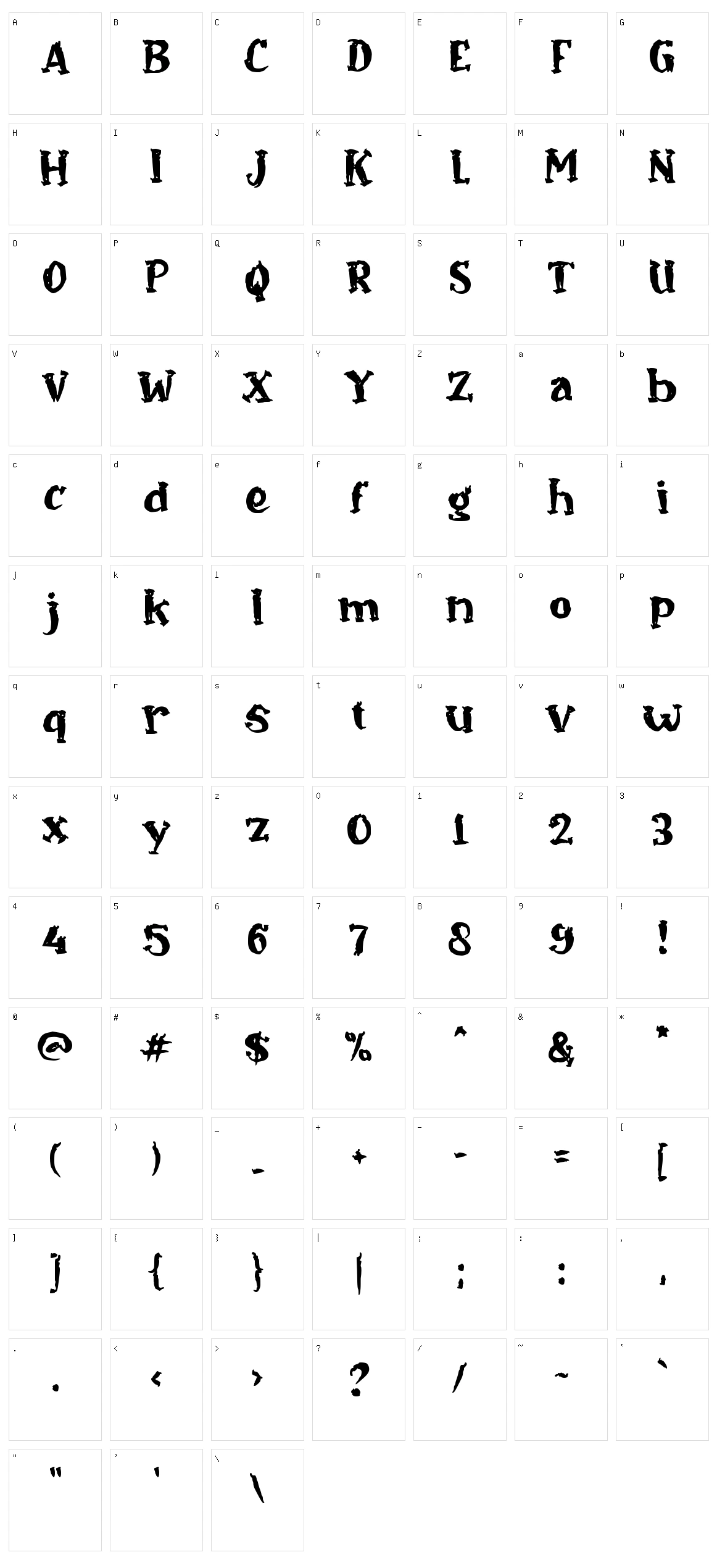
The free font c Cisory is carefully designed by wep, showcasing a thoughtful balance of creativity and usability and falls under the Destroy font style. When you download the ZIP file, it contains only 24.65 KB of font files, making it lightweight and quick to download. Please review the license details below to understand permitted usage and distribution rights. If license information is not available, we recommend using this font for personal projects only or contacting the author directly for commercial usage permissions.